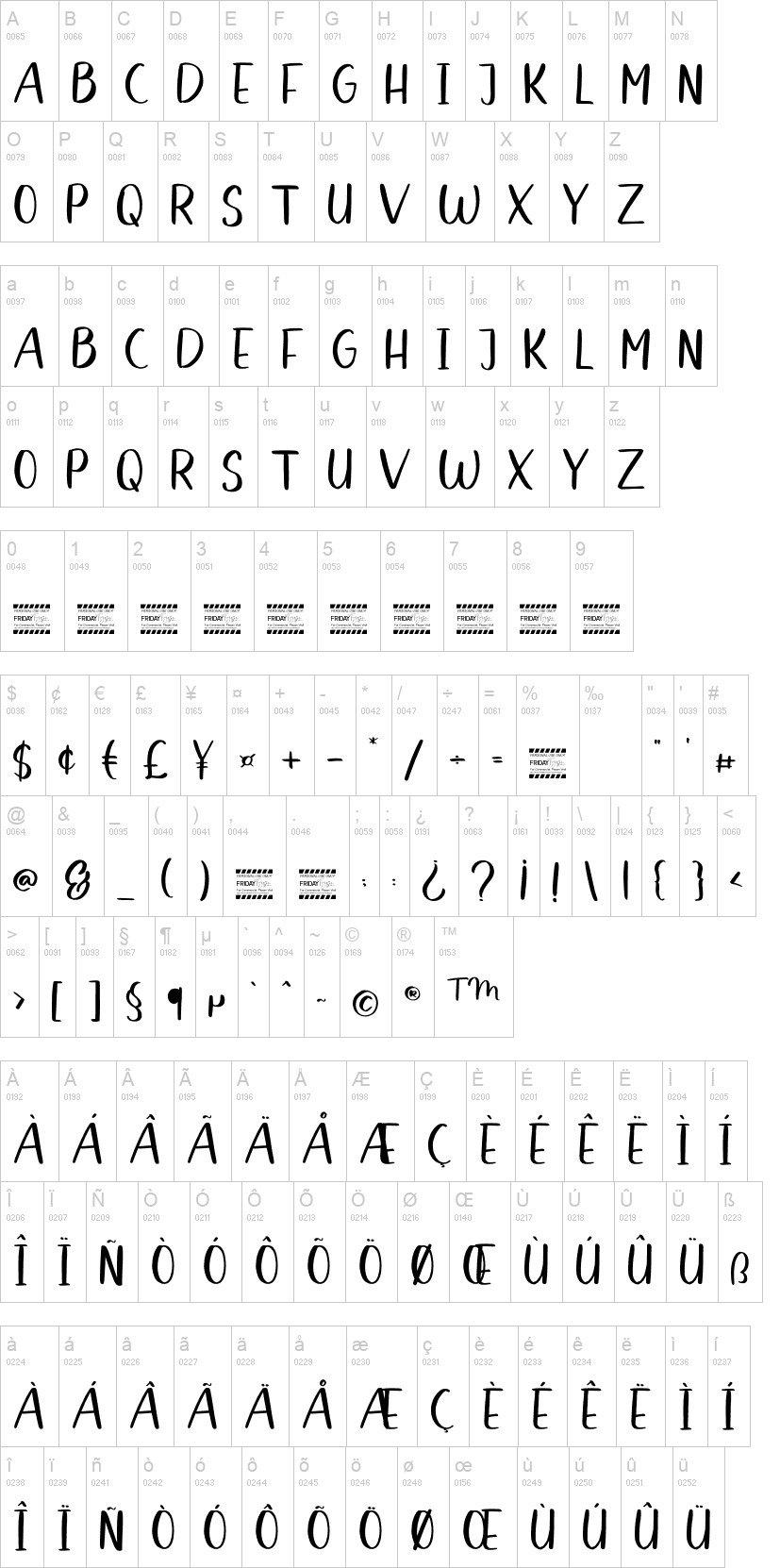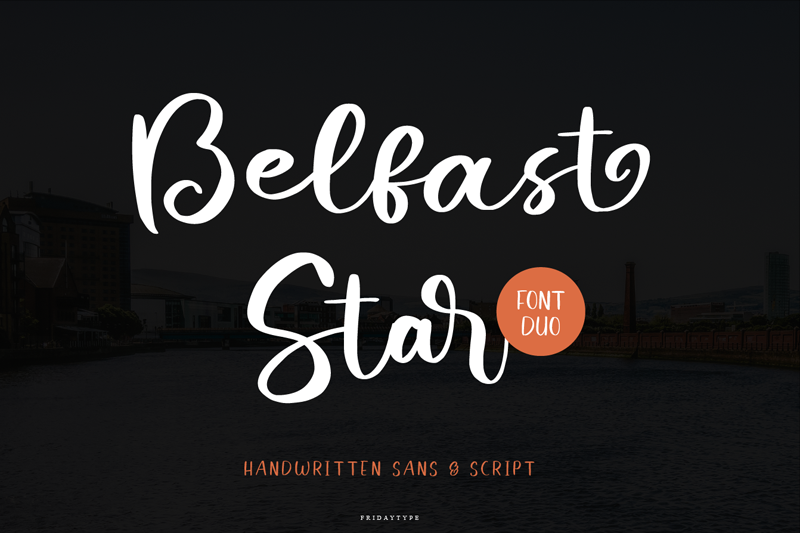
Belfast Star - Font Duo is handwritten font duo that contain stylistic alternate, swash, etc to create your own customized signature, quotes, feminine logos, and websites.